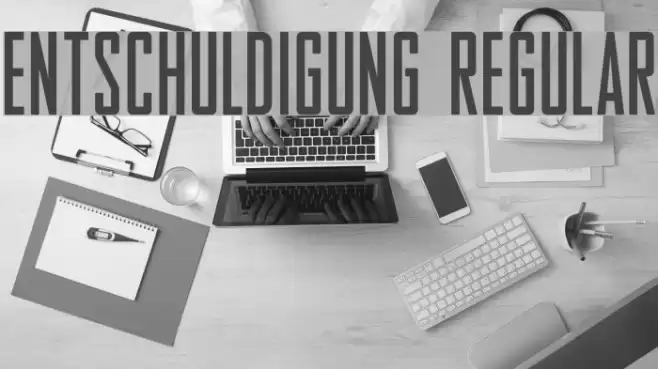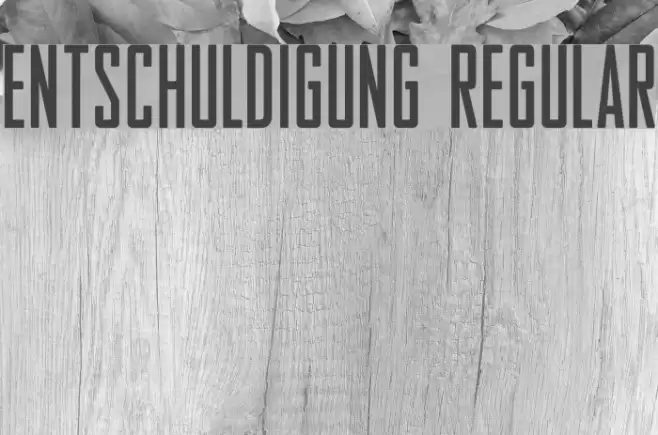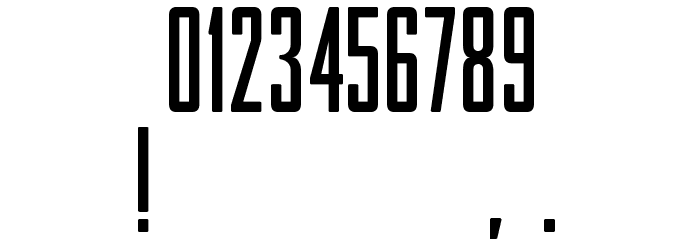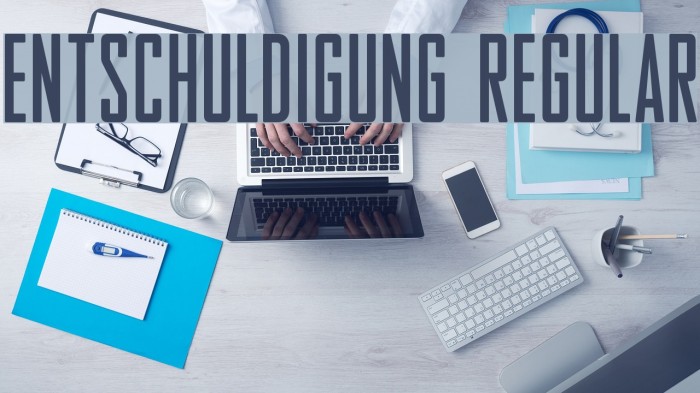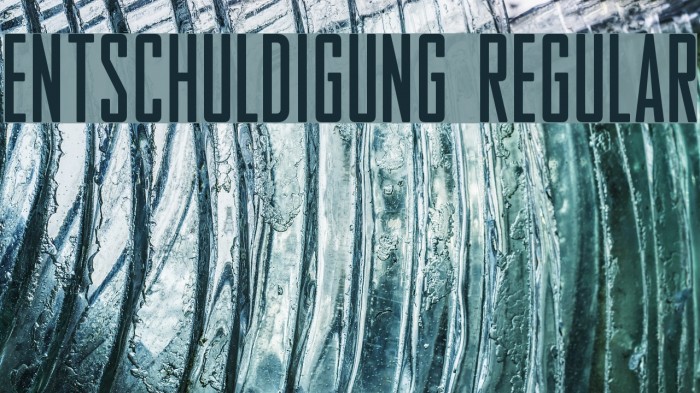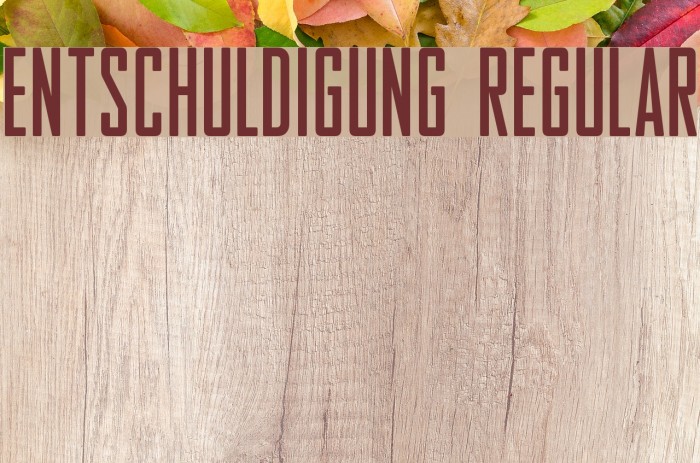
Entschuldigung Regular Font
Entschuldigung Regular Description
This font features a bold and condensed style, characterized by tall, narrow letters with a strong vertical emphasis. The uniform stroke width throughout the characters gives it a modern and sleek appearance. The uppercase and lowercase letters maintain a consistent height, contributing to its compact and structured look. The numerals are equally bold, ensuring readability and impact. The special characters are designed to match the overall aesthetic, maintaining the same weight and style. This font's clean lines and contemporary feel make it suitable for a variety of design applications.
A bold, condensed font with a modern and sleek appearance from Uncategorized fonts.
- Proposed Projects: Ideal for headlines, posters, branding, and advertising where a strong visual impact is needed.
- Character Spacing: Tight